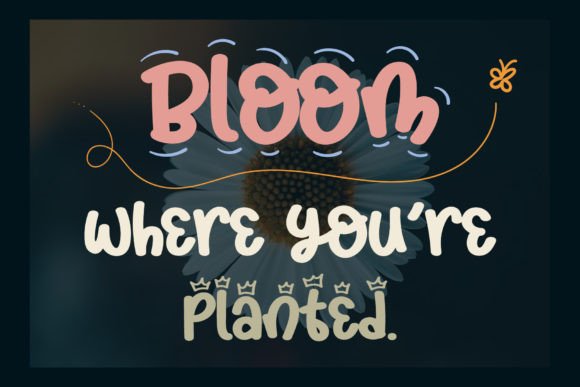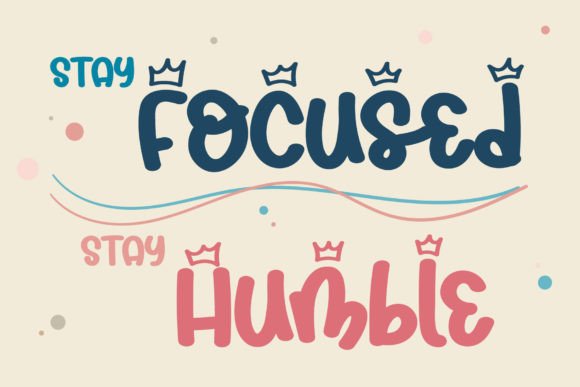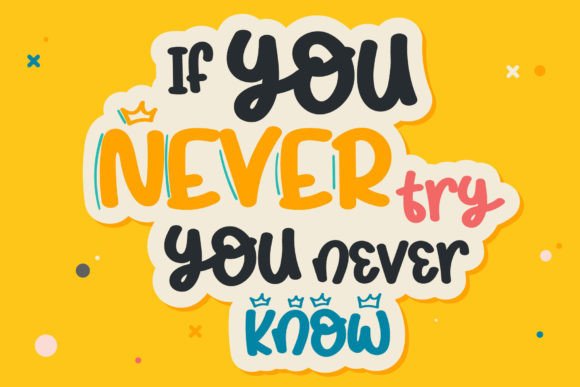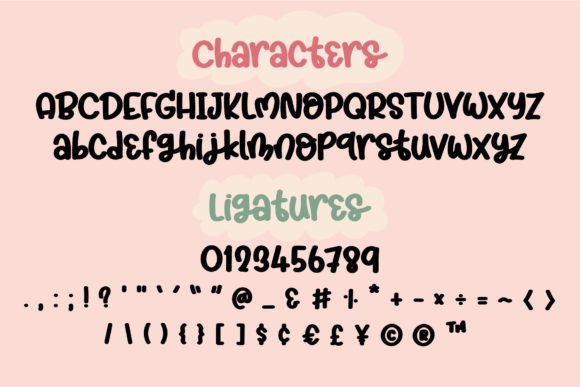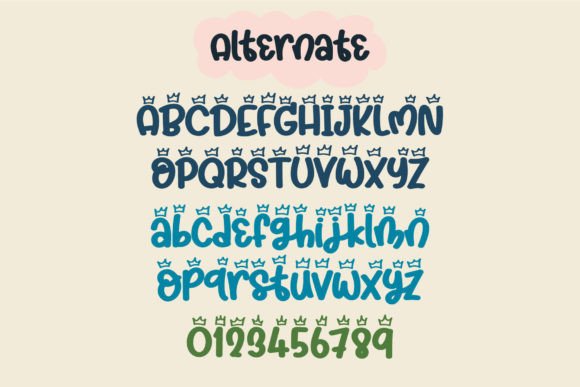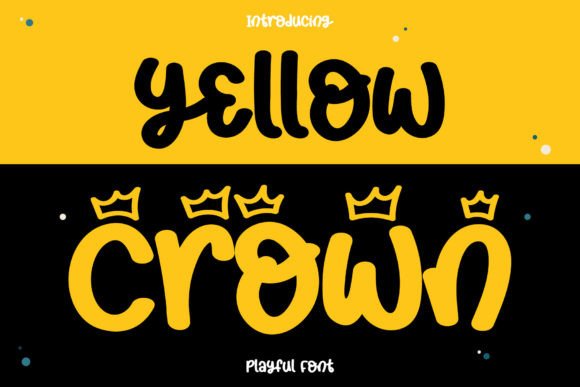
Yellow Crown Font
**”Yellow Crown”** is a delightful and playful handwritten font that adds a sense of fun and whimsy to your design projects. Crafted with precision and attention to detail, this font is a versatile asset for your font collection, capable of enhancing a wide range of creative endeavors.
The fun and playful nature of **”Yellow Crown”** makes it suitable for various design topics and contexts. Whether you’re working on children’s materials, branding, posters, greeting cards, or any other creative project, this font brings a sense of joy and lightheartedness to your designs.
In children’s materials and educational content, **”Yellow Crown”** offers a friendly and approachable typeface that engages young audiences. Its playful appearance makes learning materials more appealing and relatable to children.
For branding and promotional materials, **”Yellow Crown”** injects a dose of fun and personality into your messaging. It can be used to create eye-catching headlines and brand elements that leave a memorable impression.
Posters and advertisements designed with **”Yellow Crown”** have a cheerful and inviting quality. The font’s detailed and neatly crafted letters make your visuals more visually appealing and vibrant.
Greeting cards benefit from the font’s whimsical and friendly style, making it perfect for conveying warm and joyful sentiments to recipients.
The versatility of **”Yellow Crown”** makes it adaptable to a wide range of creative projects where a fun and playful touch is desired. Its highly detailed design ensures that it adds a touch of excellence to your creations.
In summary, **”Yellow Crown”** is a fun and playful handwritten font that brings joy and whimsy to your design projects. Its versatility and highly detailed appearance make it suitable for children’s materials, branding, posters, greeting cards, and any project where a playful and friendly font is desired.